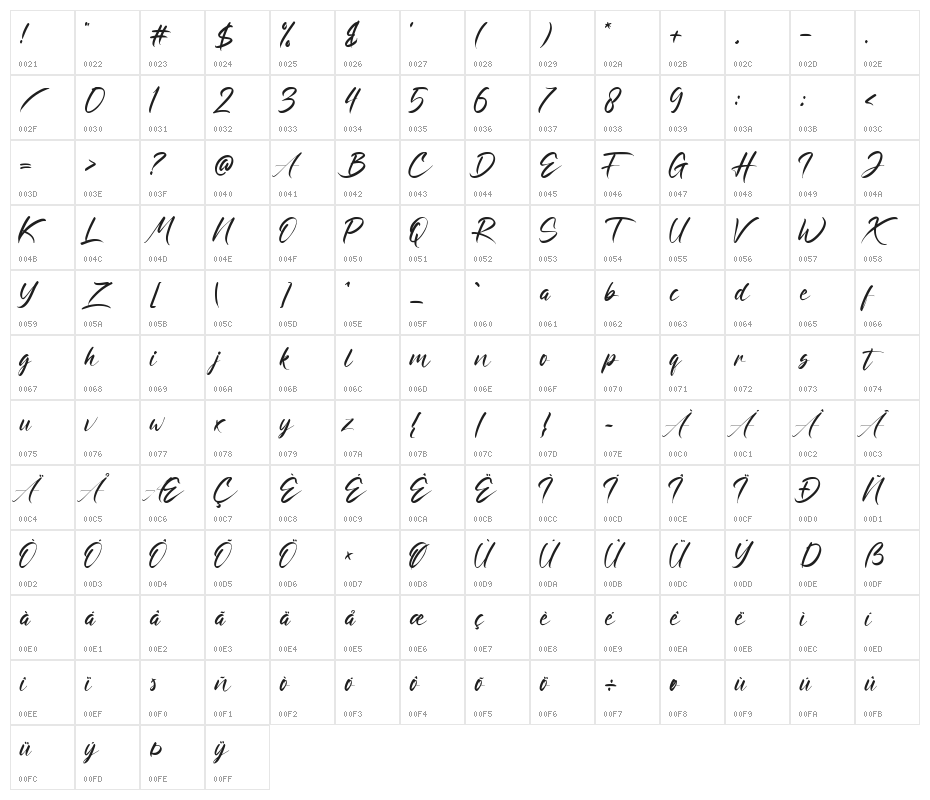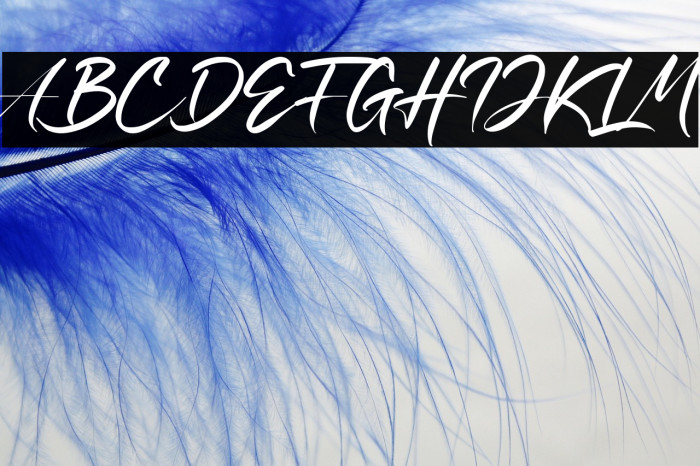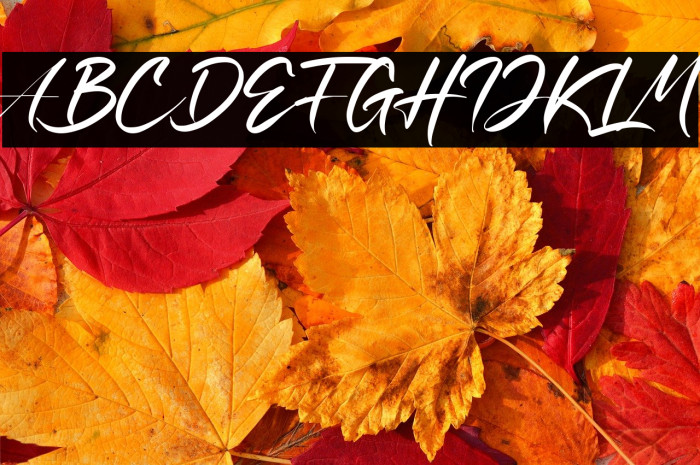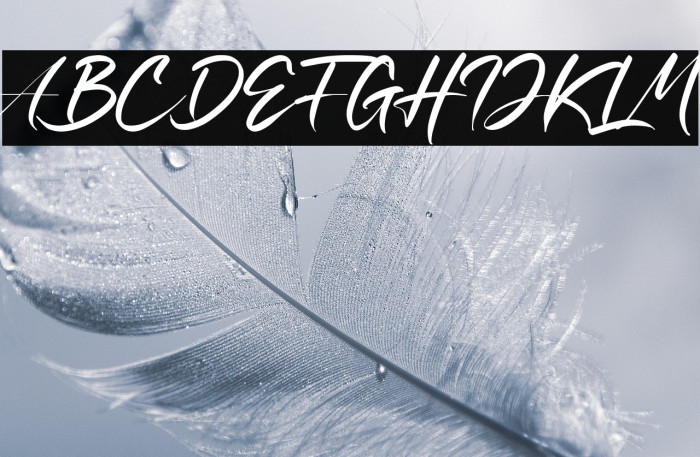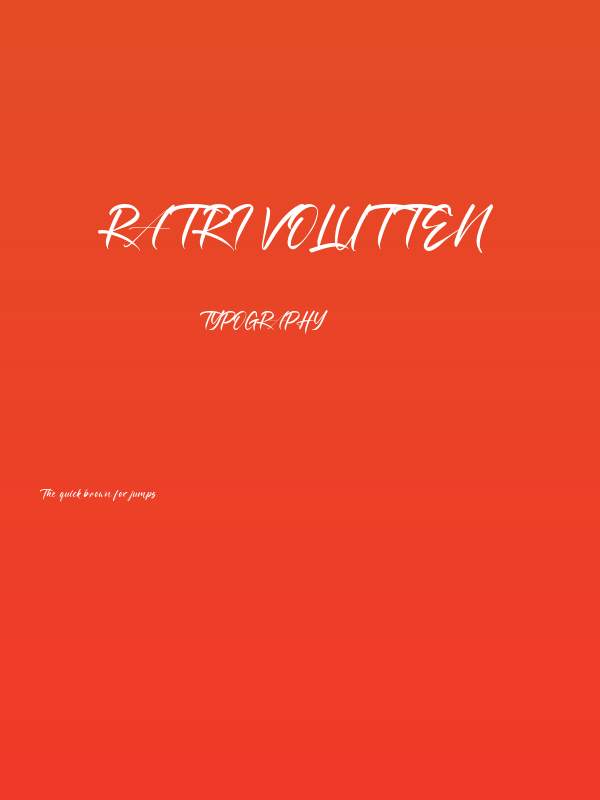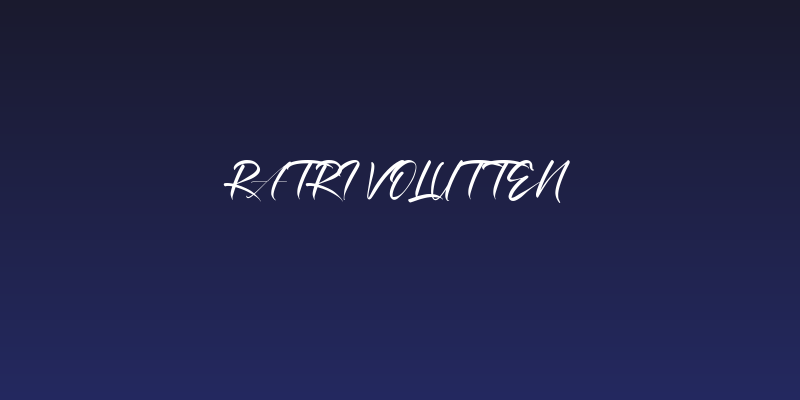
Ratri Volutten Font
Ratri Volutten Description
This font exhibits a dynamic and flowing script style, characterized by its elegant and fluid strokes. The uppercase letters are bold and sweeping, with a distinct flair that adds a sense of movement and grace. The lowercase letters maintain a consistent style, with smooth curves and a slightly slanted orientation, enhancing the overall fluidity. The numerals are crafted with the same attention to detail, ensuring they blend seamlessly with the alphabetic characters. Special characters are thoughtfully designed, maintaining the font's cohesive aesthetic. This font's artistic and expressive nature makes it ideal for creative projects that require a touch of sophistication and personality.
| Use Case | Logos, Invitations, Artistic projects |
| Proposed Projects | Ideal for wedding invitations, branding, logos, and artistic projects that require a sophisticated touch. |